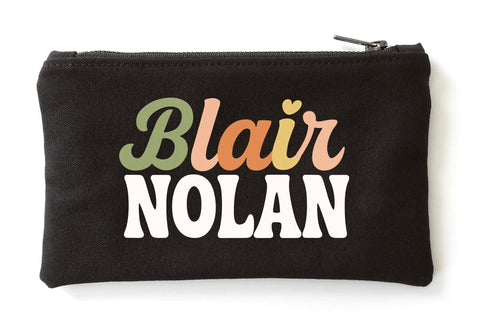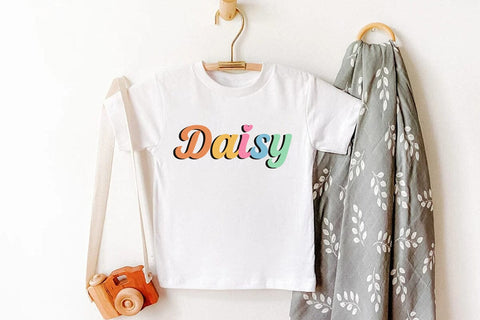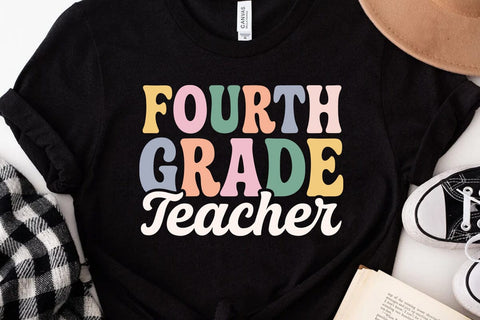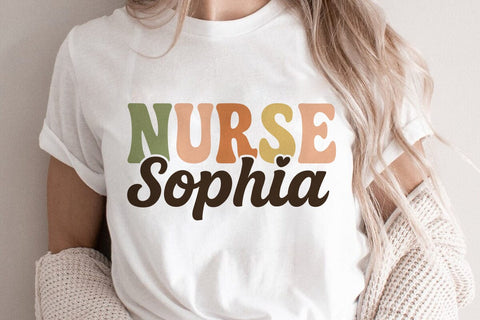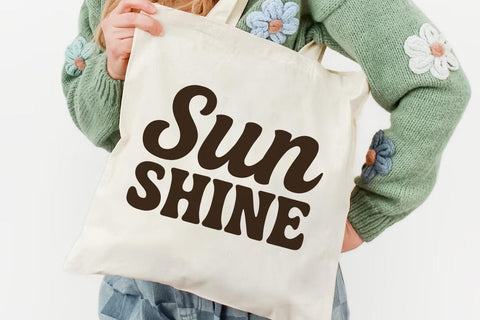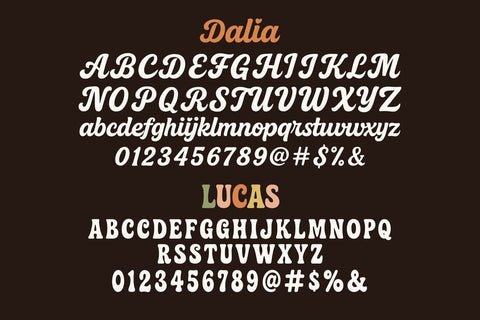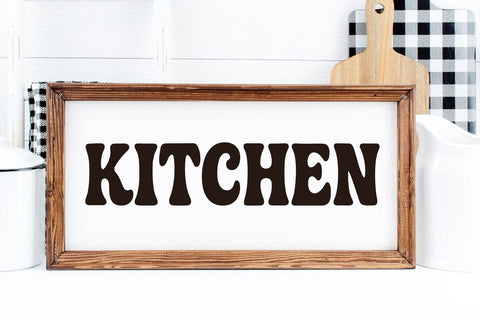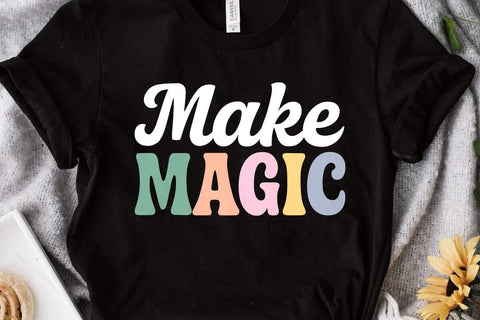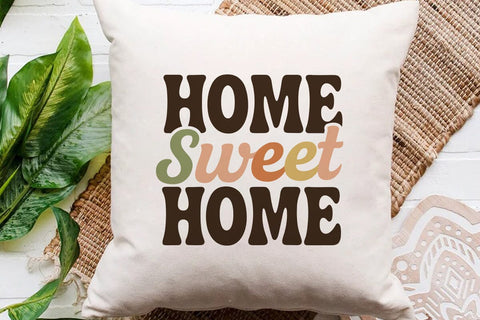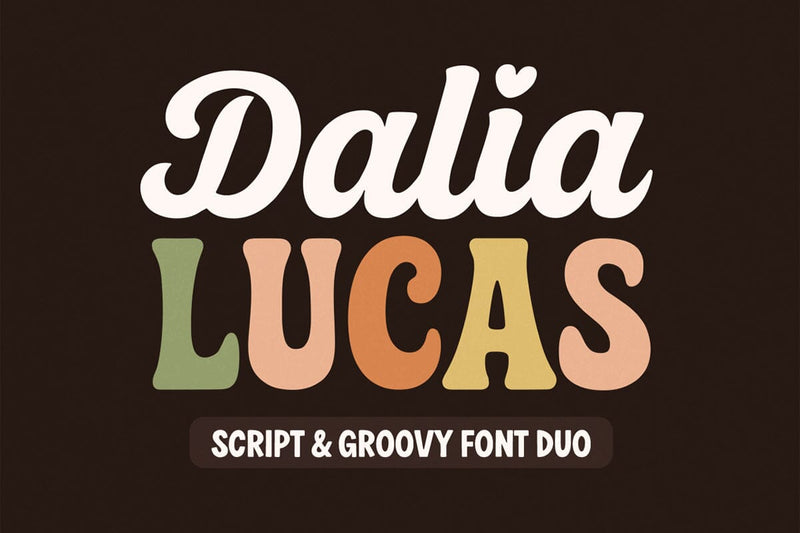
Dalia Lucas - Script Groovy Font Duo
Dalia Lucas is a script & groovy font duo and retro, boho, and fun 70s display font. Whether you’re using it for crafts, digital design, presentations, or making greeting cards, this font has the potential to become your favorite, no matter the occasion! It is the best choice for creating eye-catching logos, branding, and quotes. Add it to your most creative ideas, and notice how it makes them come alive!